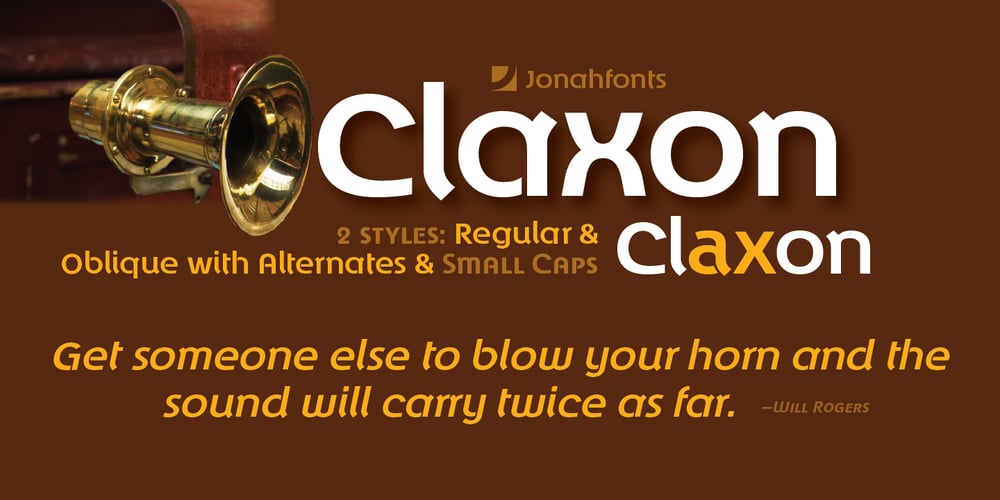
Claxon Font Family was designed by John Nahmias and published by Jonahfonts. Claxon contains 2 styles and family package options. Claxon is reminiscent of the types from the 1920s Bauhaus movement. Designed with very short ascenders and descenders for tighter line spacing. Effective for short headlines and general use.